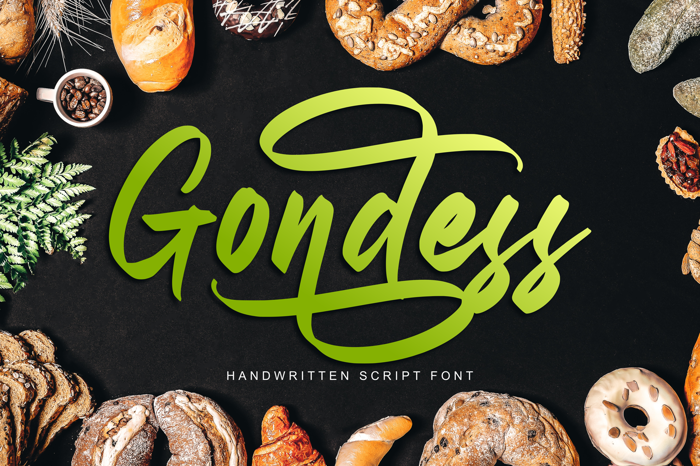
Gondess Font
Gondess! A handwritten script font with 4 styles of lowercase alternate. Gondess font is perfect for branding, logotype, apparel, T-shirt, Hoodie, product packaging, quotes, flyer, poster, etc.
1. Uppercase and lowercase characters
2. Supports international languages
3. Numerals, punctuations, stylistic alternates.